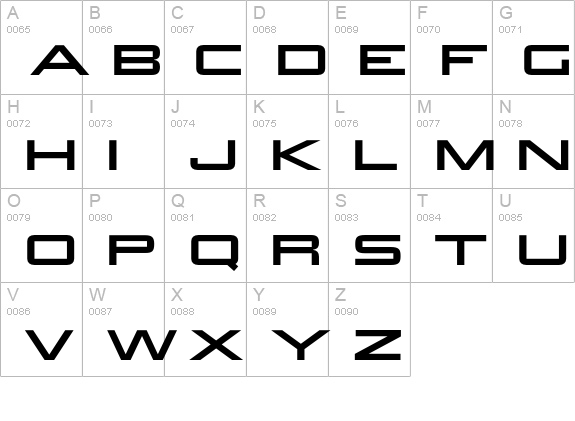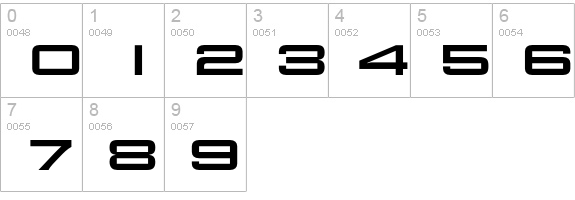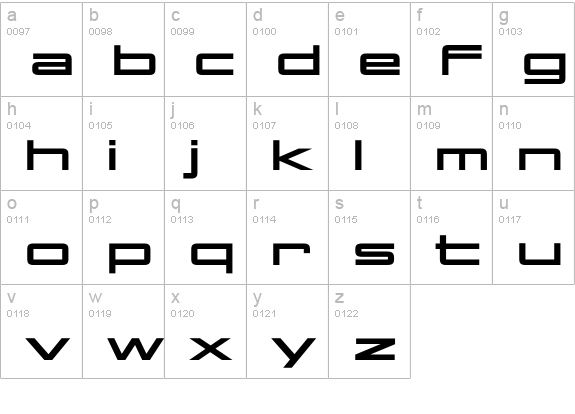
OPTIAggie-Solid Font Details
OPTIAggie-Solid is a modern and sleek display font that exudes a sense of strength and solidity. Its bold and geometric design makes it perfect for eye-catching headlines, logos, and branding projects. The sharp edges and clean lines give OPTIAggie-Solid a contemporary and edgy look that is sure to make your designs stand out. What's even better is that OPTIAggie-Solid is completely free to download at FontsMarket.com. This means you can easily access this high-quality font to enhance your creative projects without any cost. Whether you're a designer, artist, or just someone looking to add a touch of sophistication to your work, OPTIAggie-Solid is a fantastic choice that won't break the bank. Download OPTIAggie-Solid today and elevate your designs with this dynamic and versatile font that is sure to leave a lasting impression.